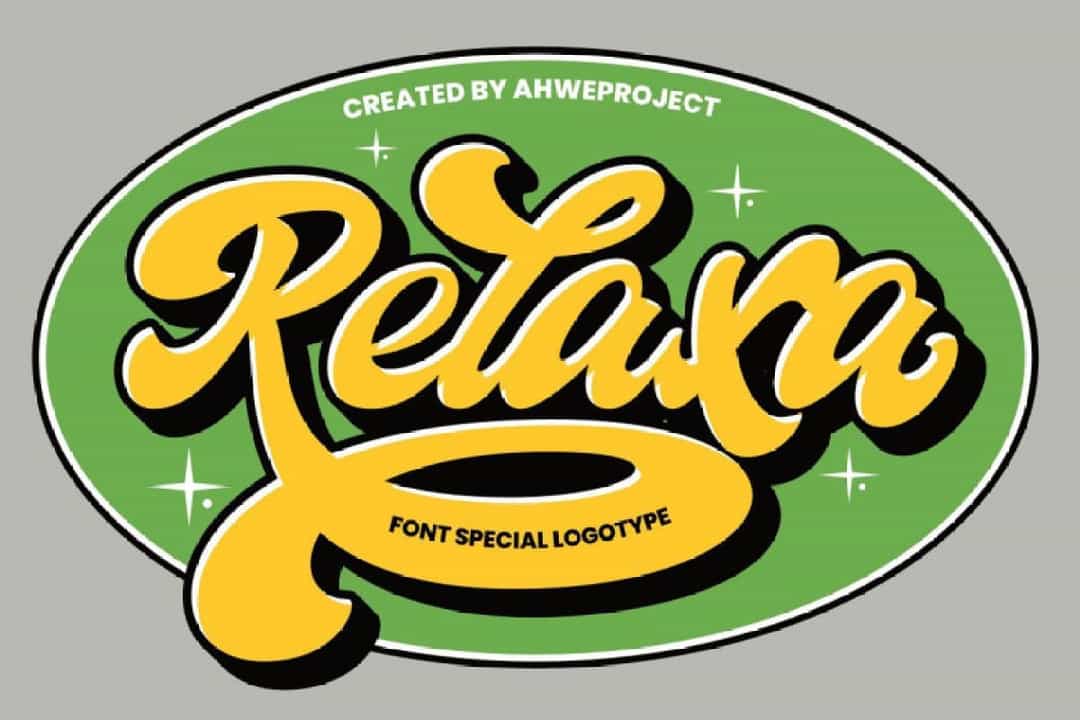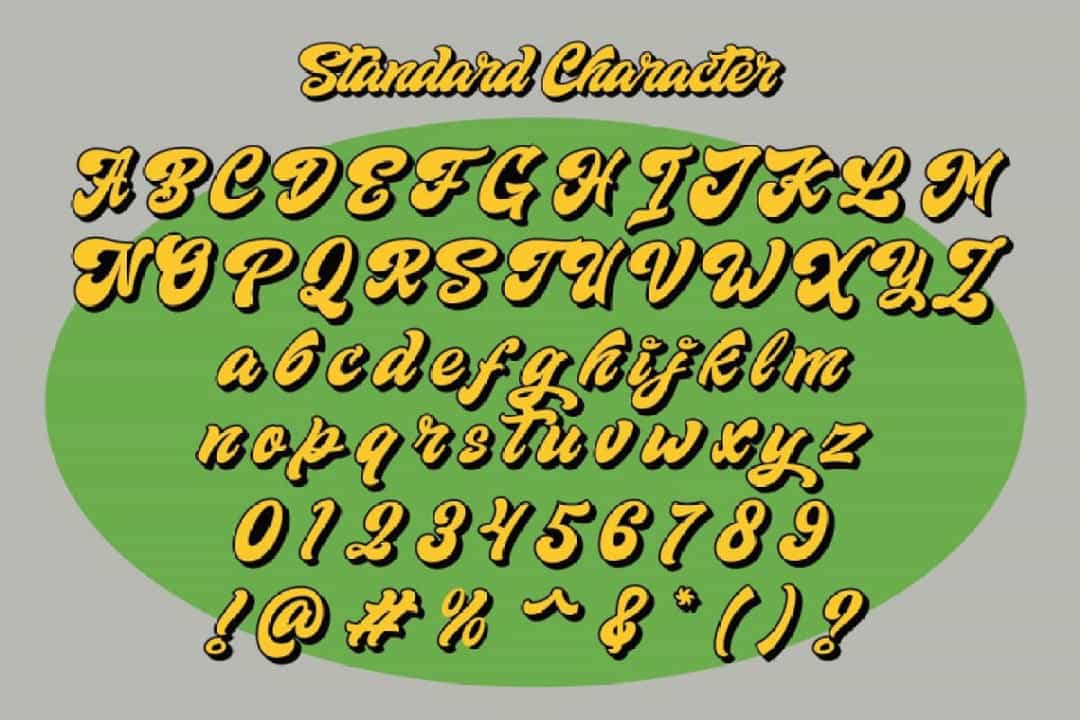
Relaxa is an innovative script with modern-day inspiration derived from logotype-style lettering with its striking bold style of typography. Perfect for retro and logotype designs such as badges, posters, T-shirt packaging as well as book covers signage! Relaxa font is perfect for retro designs such as badges posters T-shirt packaging signage book covers signage.